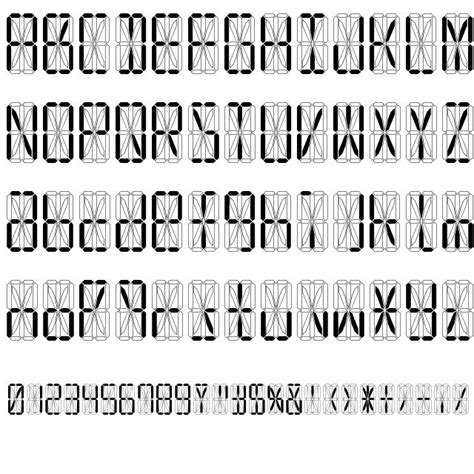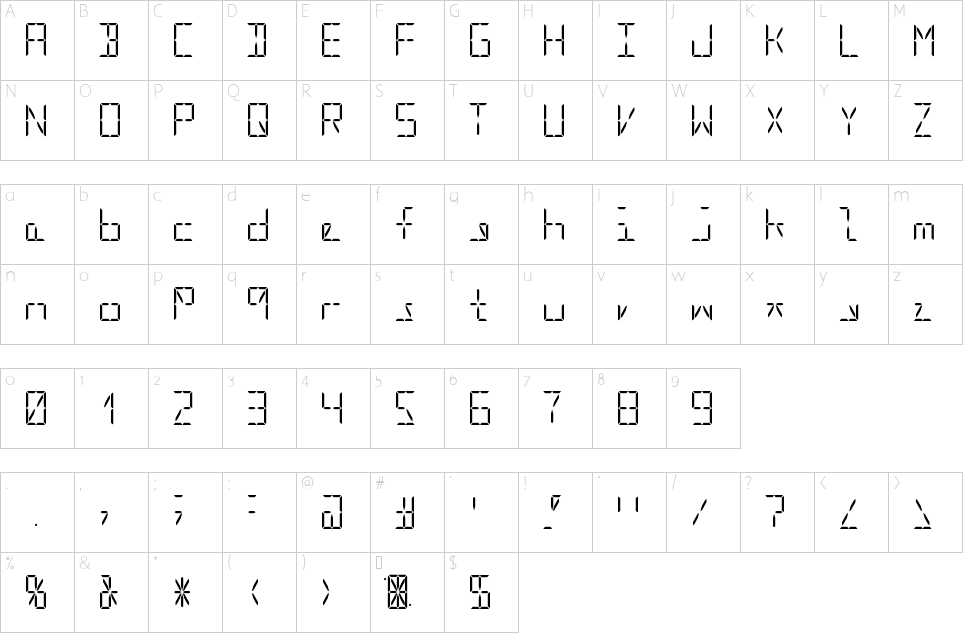
16 Segment Font. Every font is free to. Web a digital typeface emulating a sixteen segment display.
Web download a free font that resembles a sixteen segment display, created by thor christopher arisland. Web looking for led 16 segment fonts? This font is free for personal use. Web a digital typeface emulating a sixteen segment display. Click to find the best 2 free fonts in the led 16 segment style. Every font is free to.
Web a digital typeface emulating a sixteen segment display. Web looking for led 16 segment fonts? This font is free for personal use. Click to find the best 2 free fonts in the led 16 segment style. Web download a free font that resembles a sixteen segment display, created by thor christopher arisland. Web a digital typeface emulating a sixteen segment display. Every font is free to.